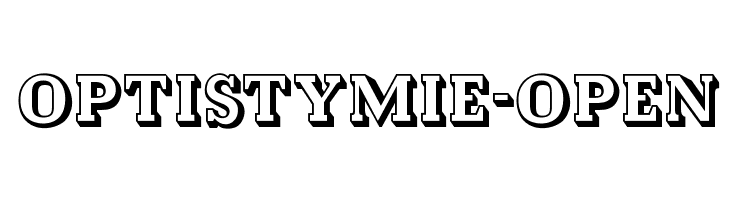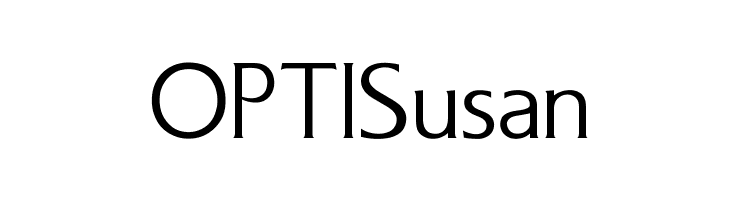
A bold, condensed serif font with strong strokes and high contrast.
A light, elegant serif font with moderate contrast and refined details.
A classic serif font with medium weight and moderate contrast, ideal for formal and structured designs.
A bold, outlined font with a classic yet modern appeal.
A bold, modern sans-serif font with geometric lines and strong presence.
A modern sans-serif font with a clean and elegant design.
An elegant script font with flowing, ornate characters and a classic, sophisticated style.
An elegant, bold script font with flowing, cursive strokes and high contrast.
A bold, sans-serif font with a modern and assertive style.
A modern, clean sans-serif font with balanced proportions and excellent readability.